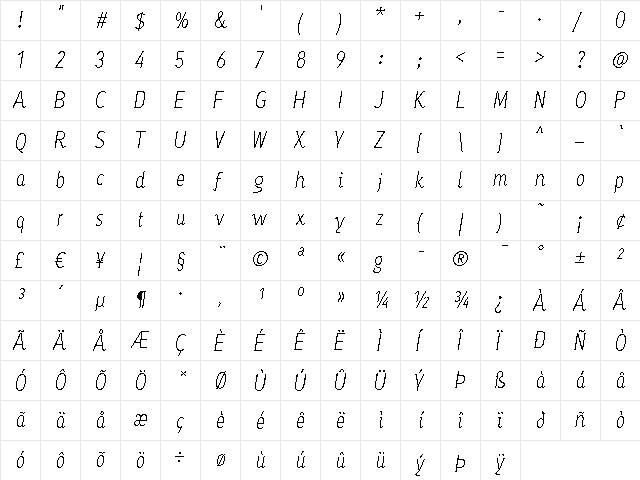
Ayumi Pro Light Italic
| Foundry | Neil Summerour (Positype) |
| Designer | Neil Summerour (Positype) |
Design Context for Ayumi Pro Typeface
Ayumi Pro is a composed and adaptable typeface that performs quietly and consistently across a wide range of design contexts. The dynamic lean of this cut emphasises speed and emphasis in any layout. The delicate stroke weight brings airiness and refinement to layouts.
Pro Tip: Use Ayumi Pro for emphasis, pull quotes, and subheadings where its slanted energy can add rhythm to the layout.